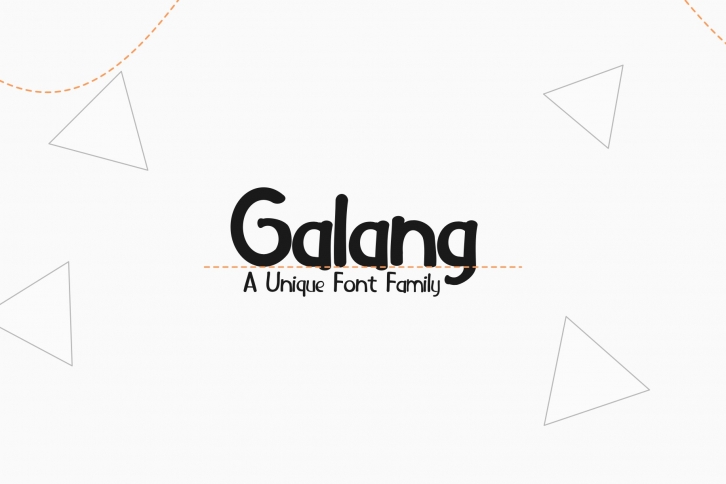
Introdution our new font, Galang.
A set of fonts that create a casual and simple style. Suitable for those of you who are stylish like that or need to complete a theme like that.
Galang is a simple, yet fun sans serif font. Get inspired by its casual coolness!